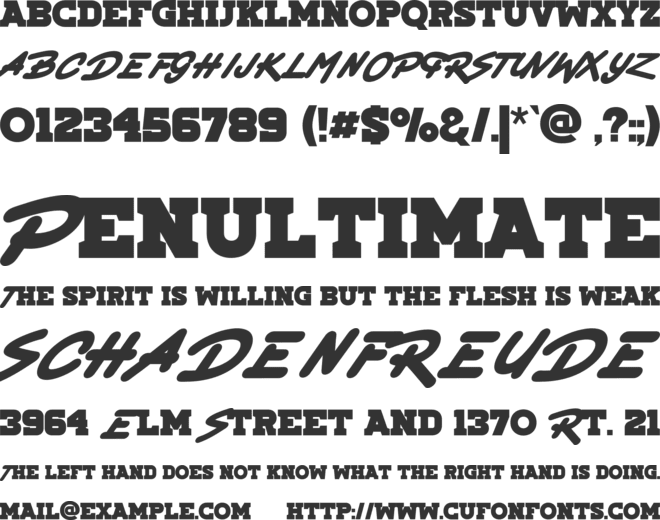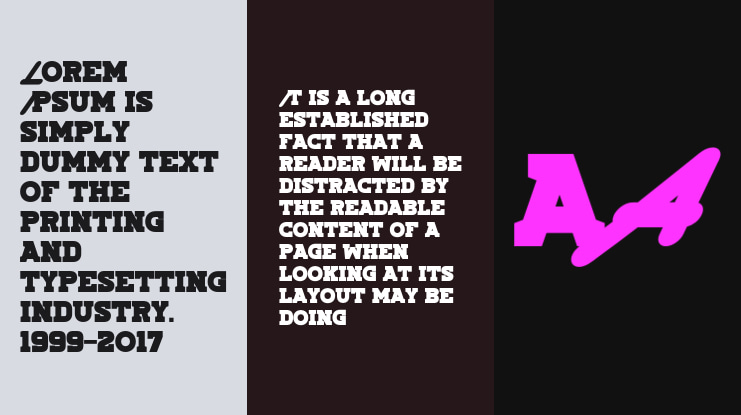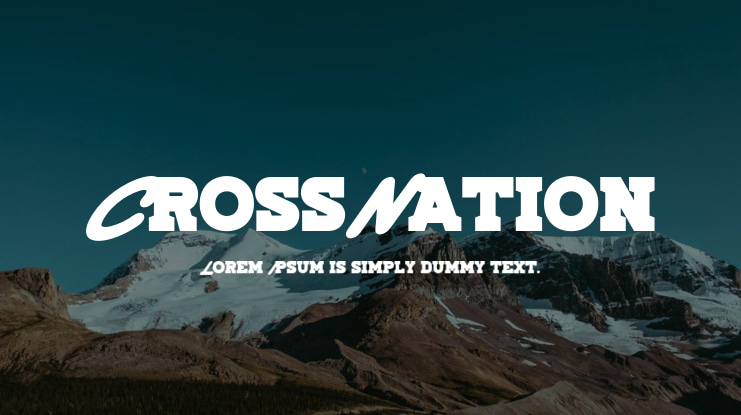
CrossNation Font
Proudly introducing, Crossnation, the ultimate duo font combining serif and script with motorcross theme. With added ligatures, this font brings an extra touch of adventures and wild energy. It also features multilingual support, making it perfect for global use. Whether you're creating logos, posters, or editorial designs that need a sense of adventure, boldness, and adrenaline, this font is your go-to choice to grab attention in easy way. But that’s not all—Cross Nation comes with a super cool bonus vector pack to add even more value to your designs!